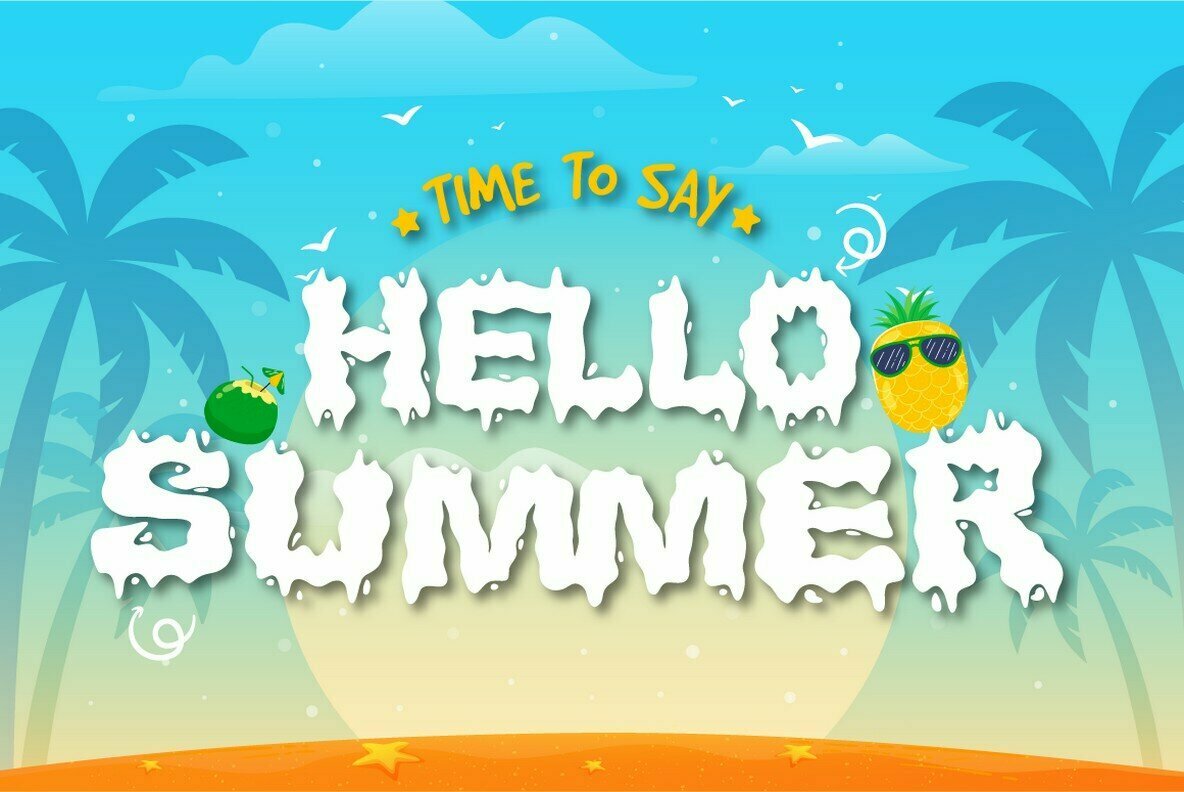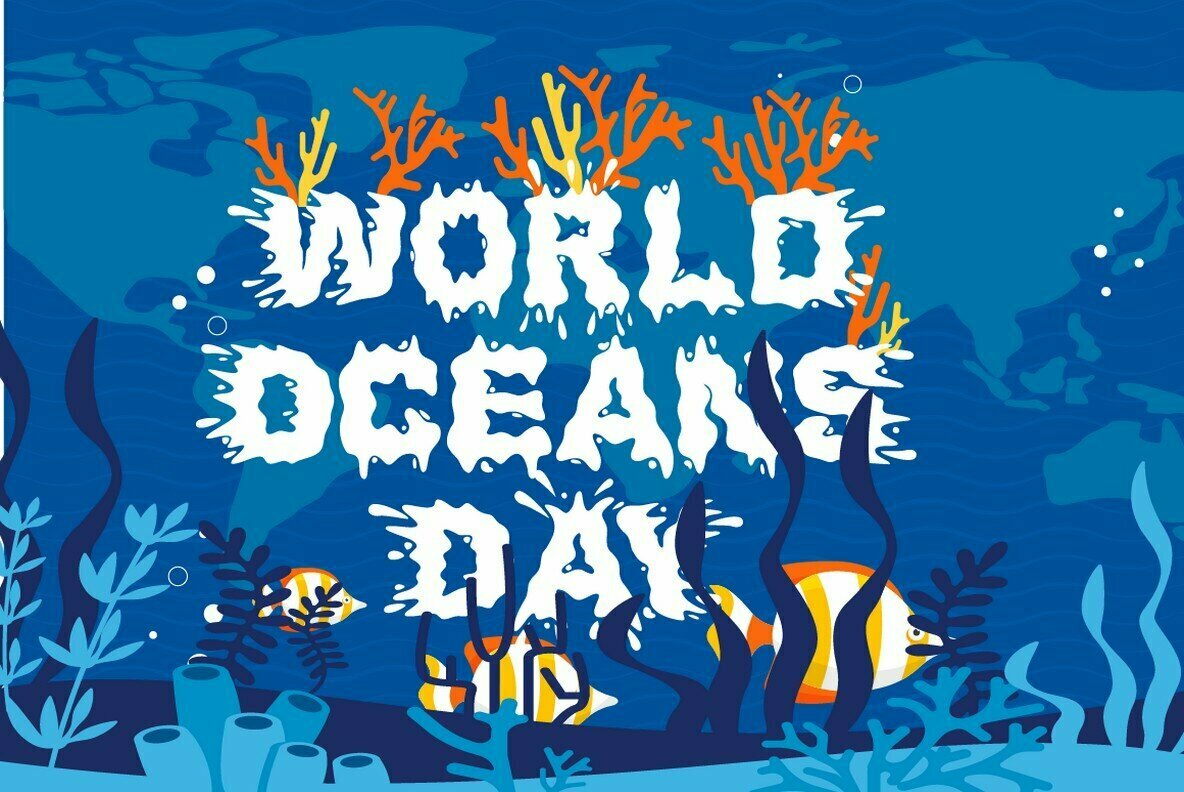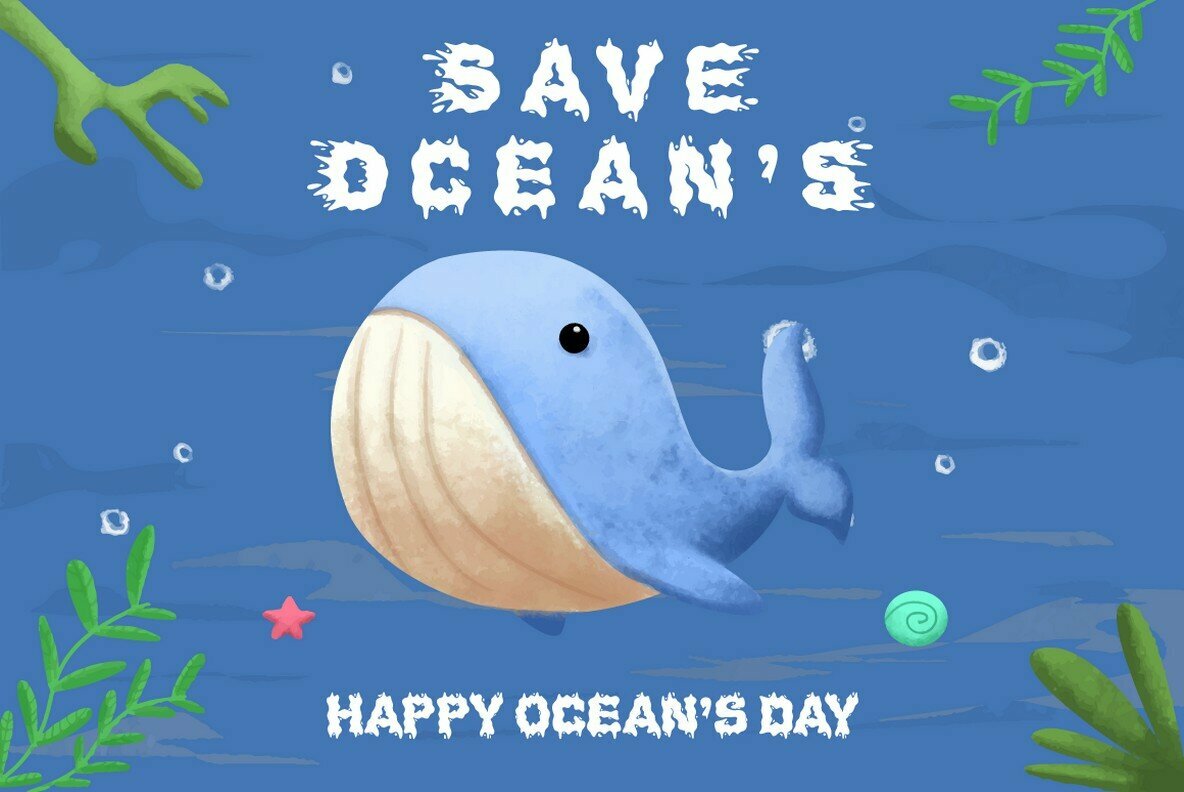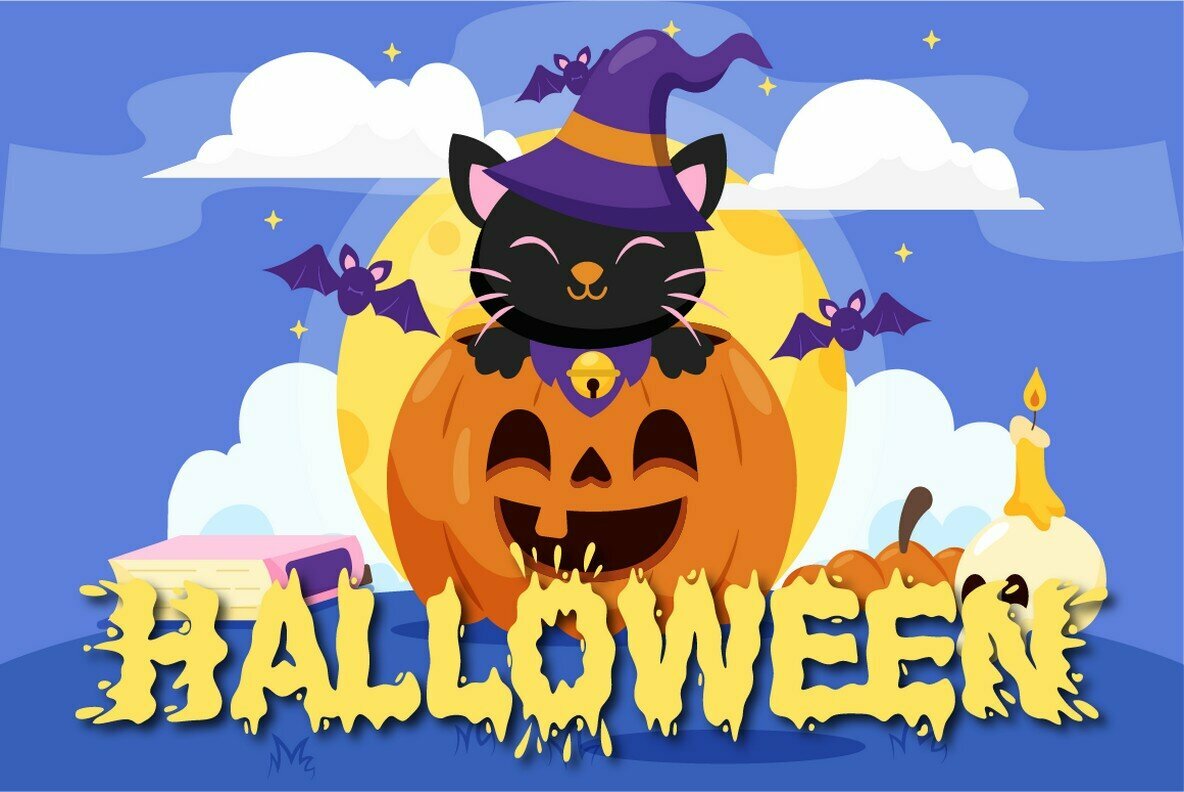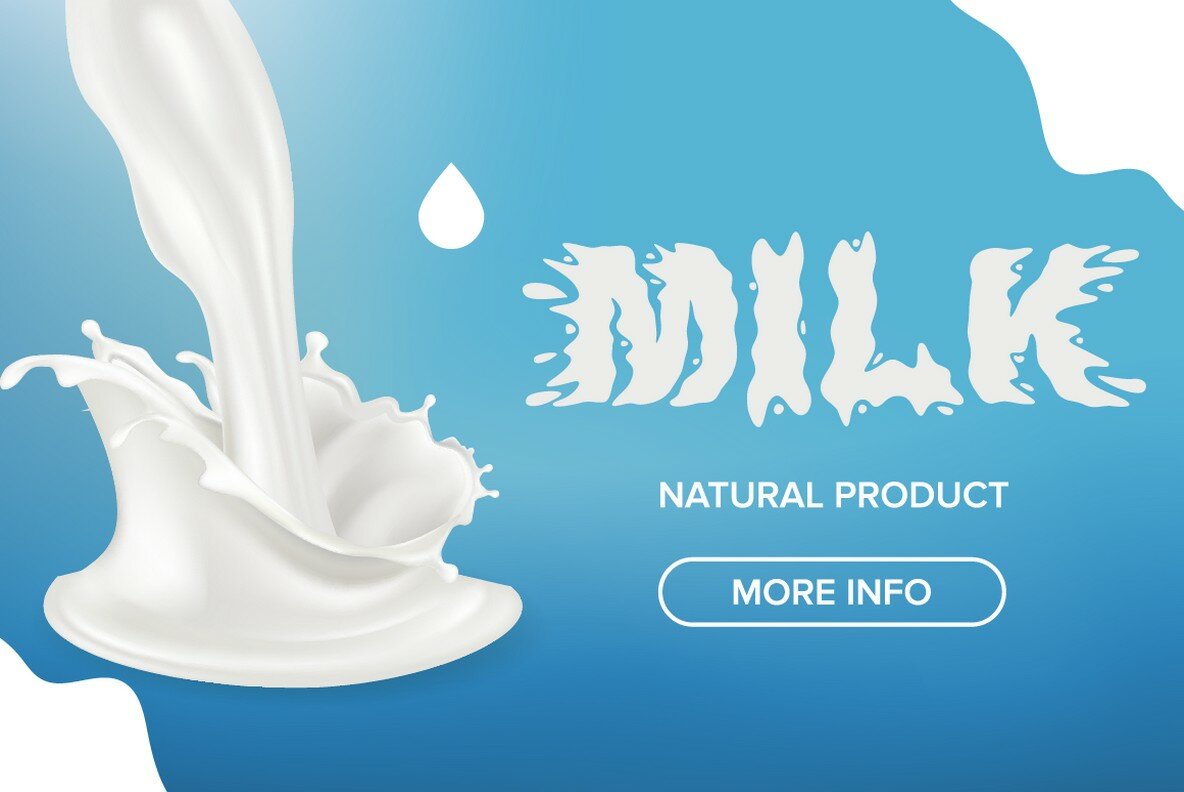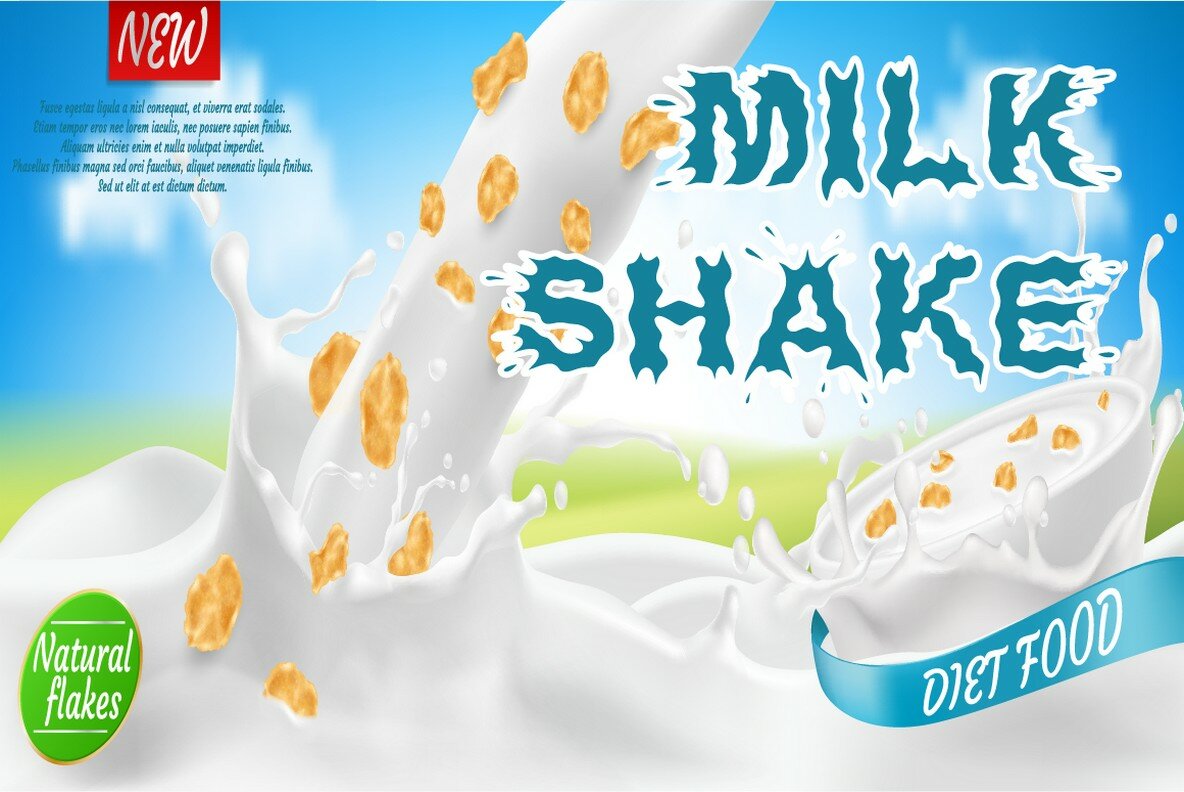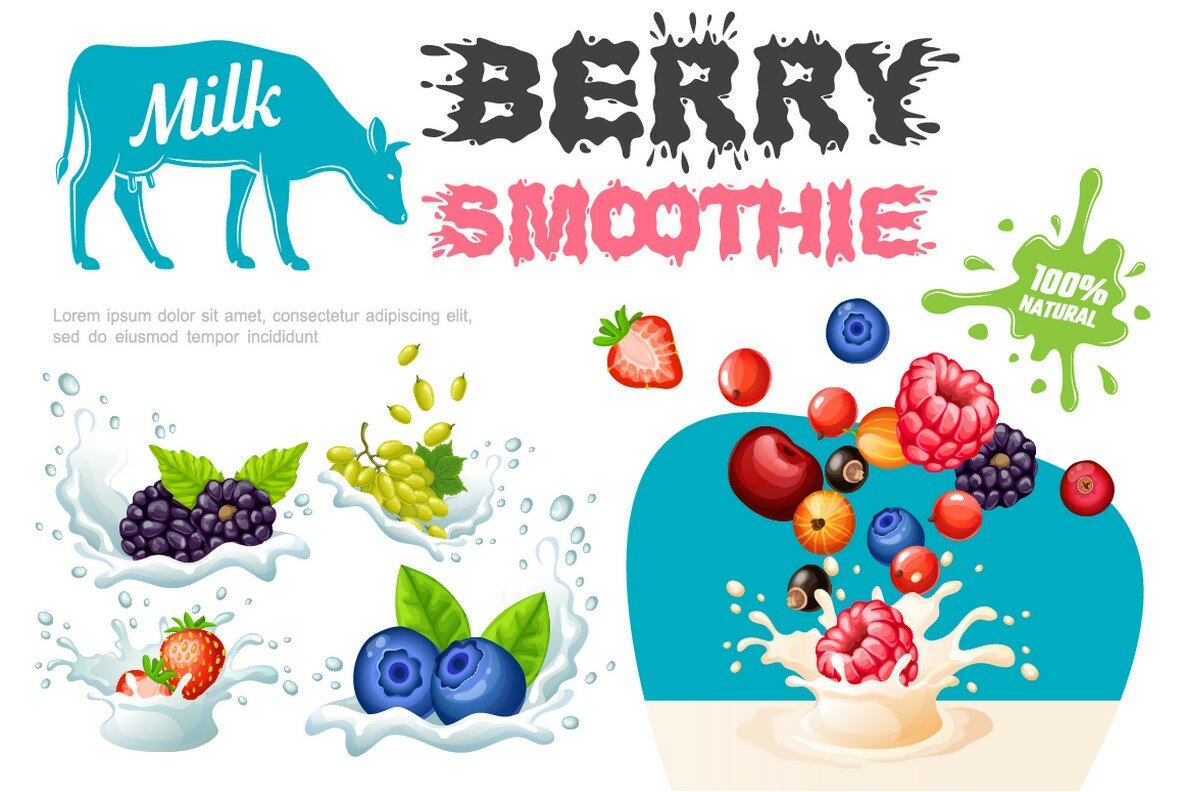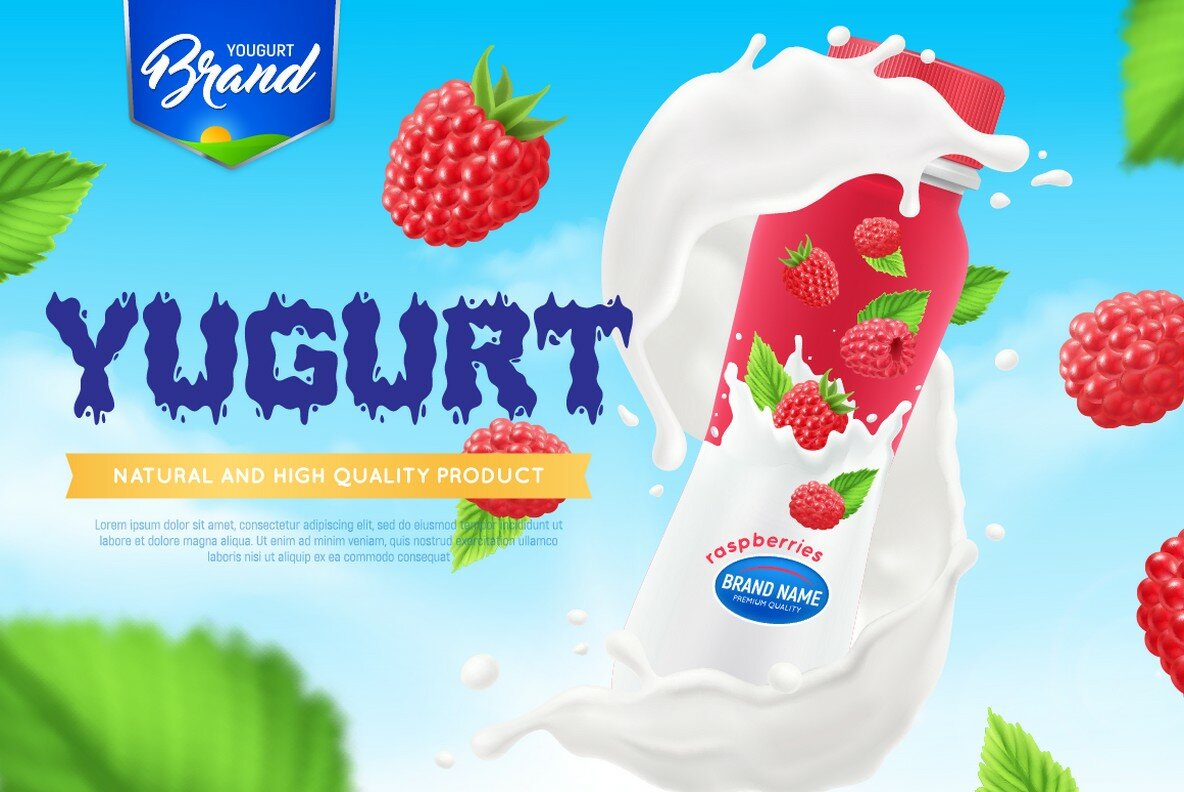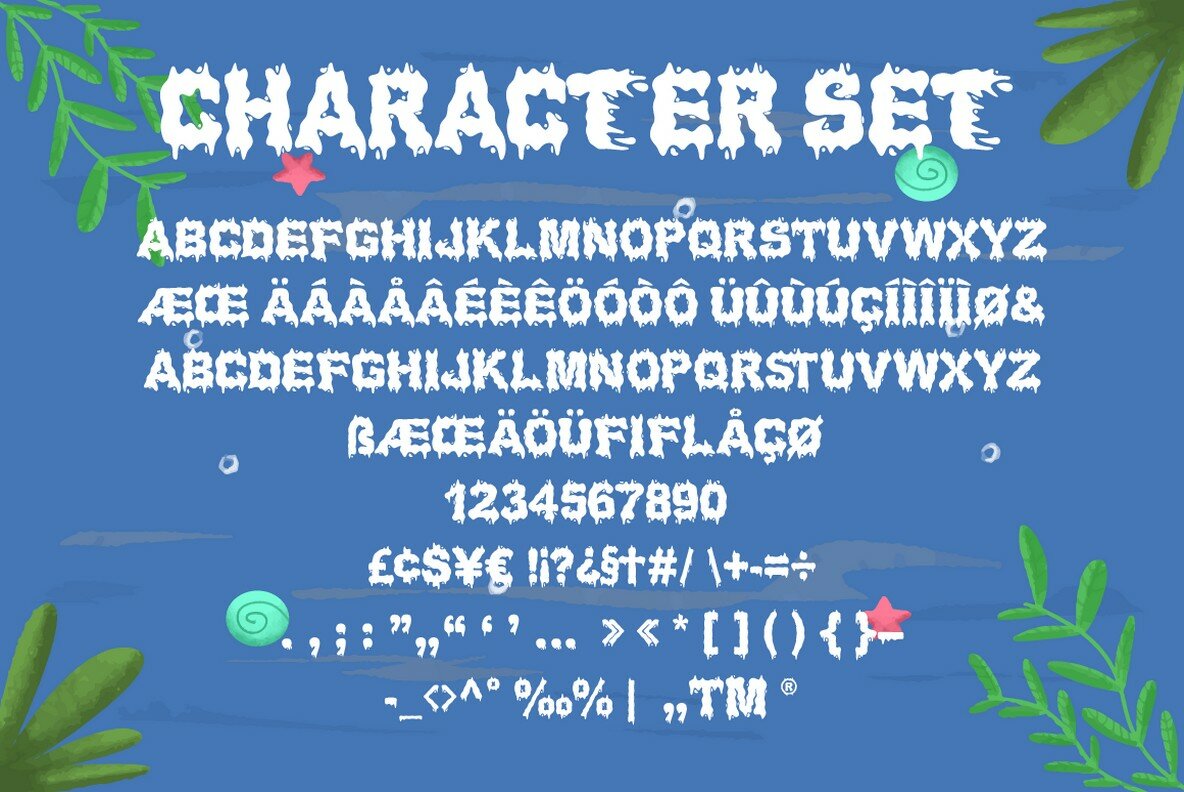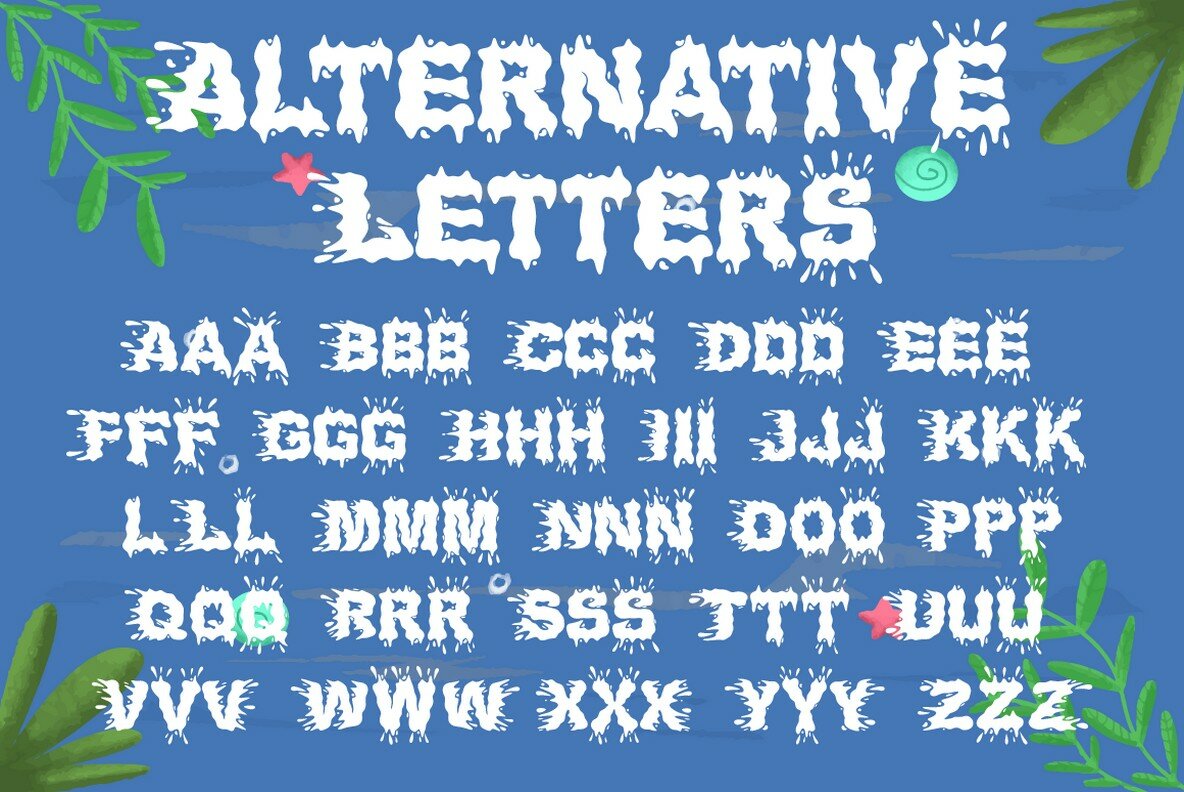
Water Splash Font
Water Splash
Embrace creativity with Water Splash, a display font that draws inspiration from the flowing and unpredictable nature of water. Its design is characterized by unique splash variations in three distinct directions—left, up and down, and right—providing a playful and dynamic aesthetic. These variations allow designers to infuse vitality into their projects, offering a distinctive and engaging visual experience. Perfect for a variety of creative applications, Water Splash is ideal for branding, logos, product designs, and more. Whether you're crafting book titles, playful quotes, or whimsical posters, this font brings a touch of water-inspired fun to your work. Features:Water Splash: Dynamic Display Font with Playful Variations